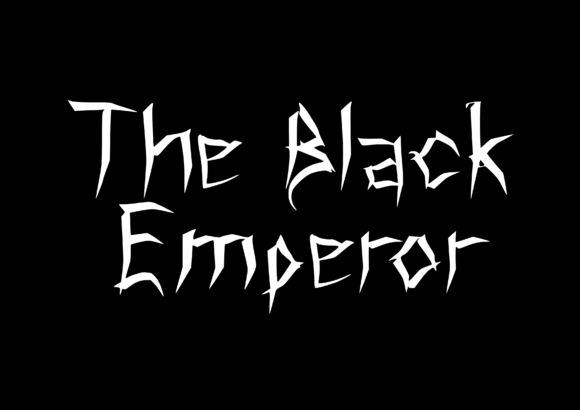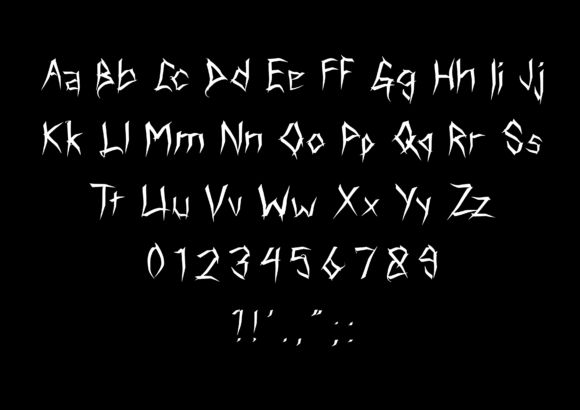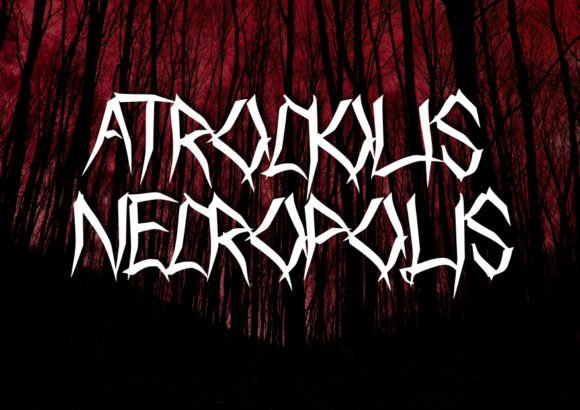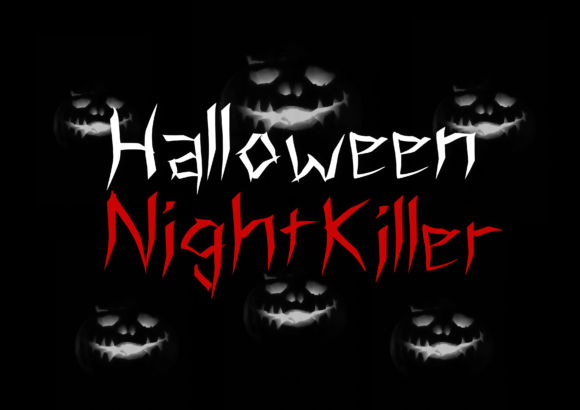
Introduction to Morbid Life Font
Morbid Life is a “dangerous” display font.
It is inspired by horror movies, and death metal music, which makes its visual appearance evil and spooky Morbid Life can be used for Halloween designs, branding, album covers, posters, or anything that needs a dramatic look.